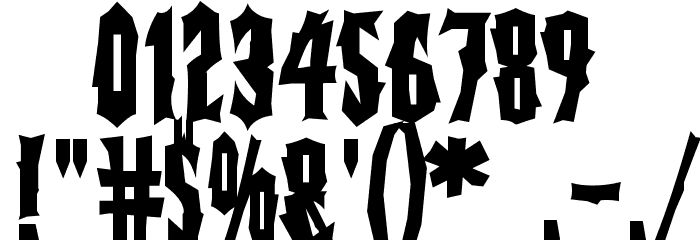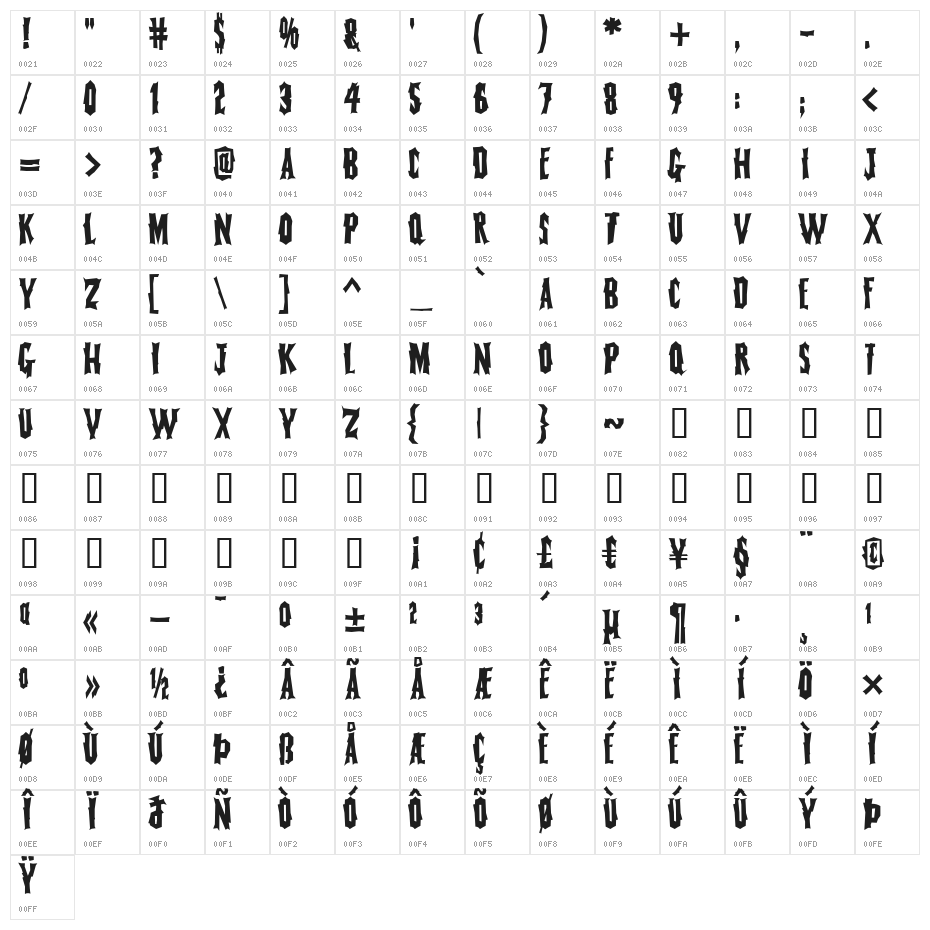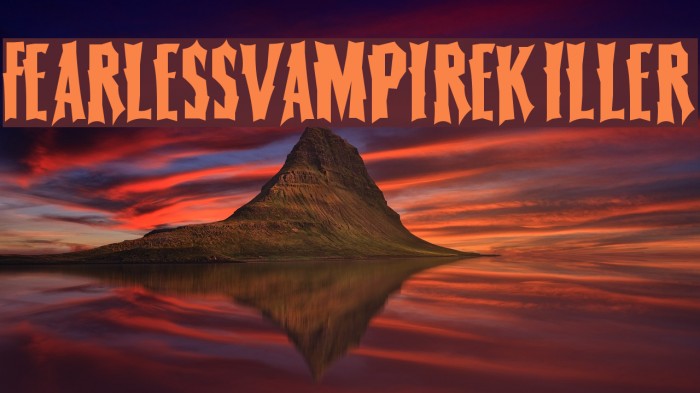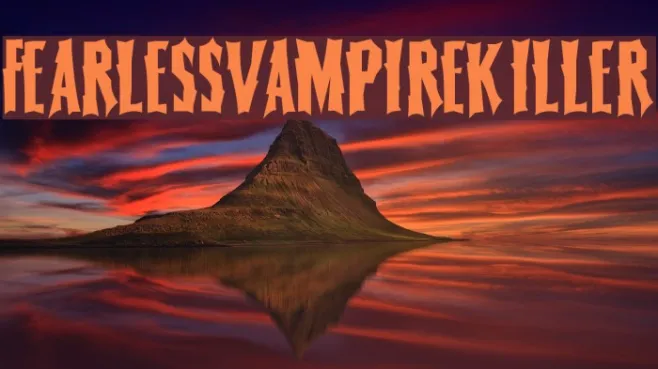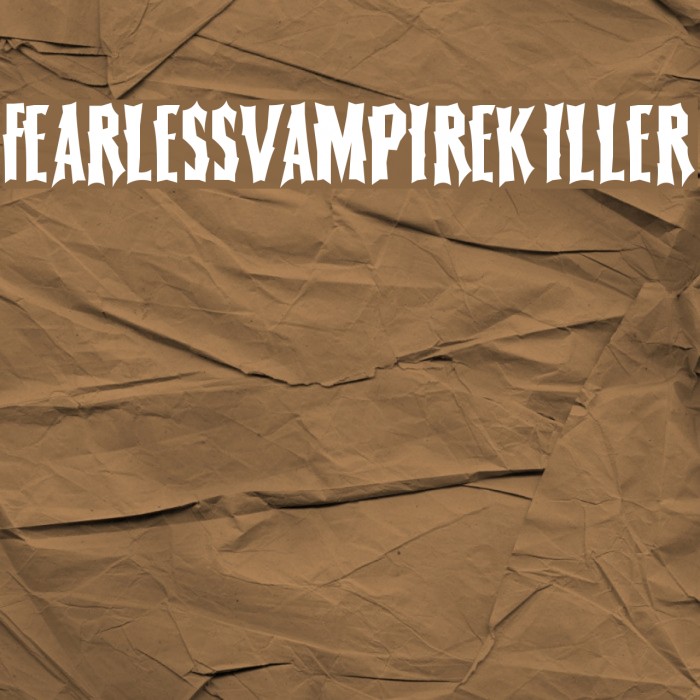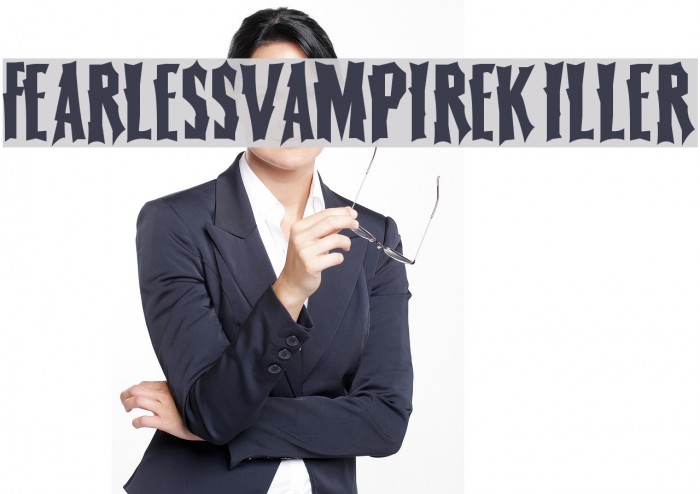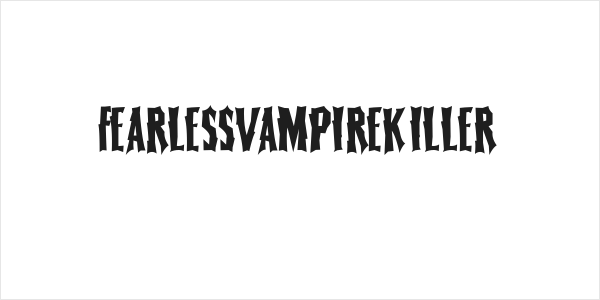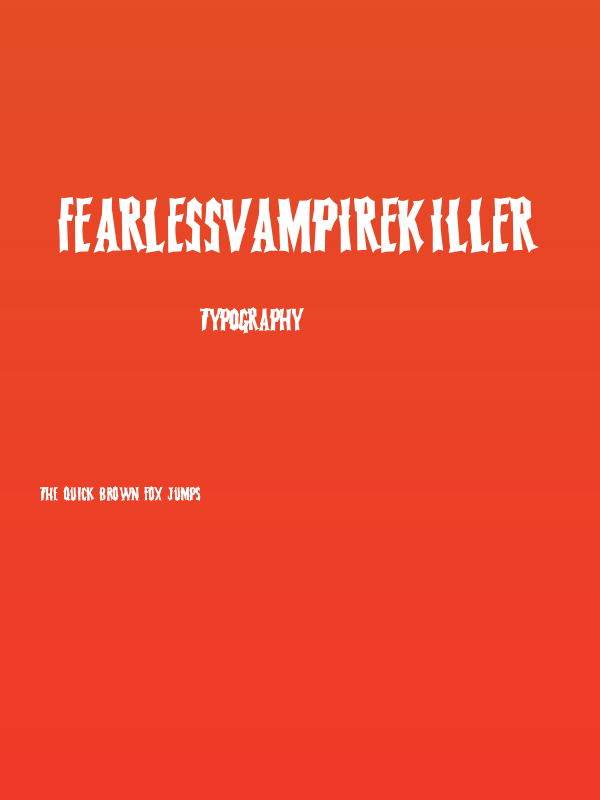
FearlessVampireKiller Font
FearlessVampireKiller Description
This font features a bold and edgy design with sharp, angular lines that give it a distinctly gothic and dramatic appearance. The characters are heavily stylized, with exaggerated serifs and a jagged aesthetic that evokes a sense of mystery and intensity. The uppercase and lowercase letters maintain a consistent style, while the numbers and special characters are equally bold and striking. This font is ideal for projects that require a strong visual impact and a touch of the macabre.
| Overall Style | Gothic, Dramatic |
| Proposed Projects | Ideal for horror-themed posters, Halloween invitations, album covers, and video game graphics. |